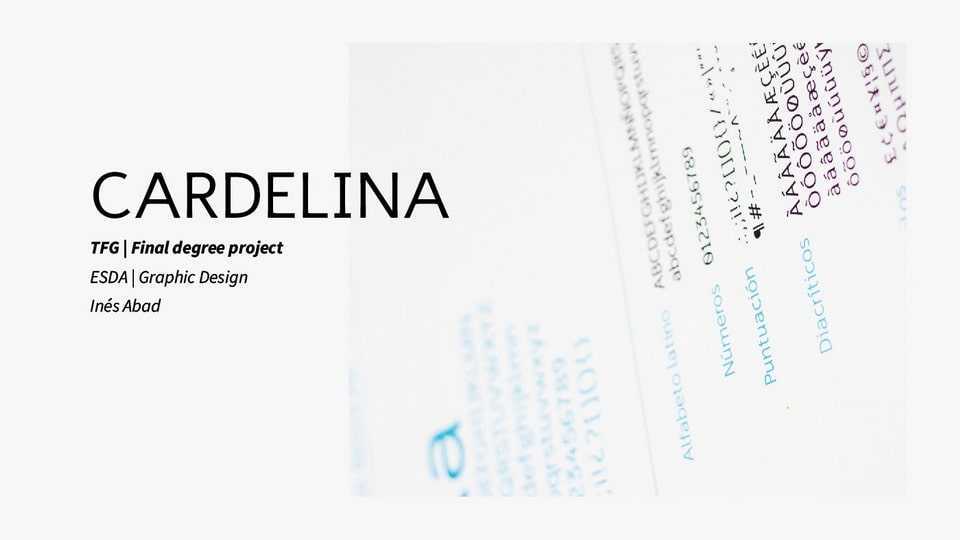
Download Cardelina font, a reading sans serif typeface, that not only was guided by its aesthetical value, but also its utility in daily life. The aim of Cardelina font is to be extremely readable by people with low vision problems such as astigmatism, myopia, presbyopia…
Designer: Inés Abad